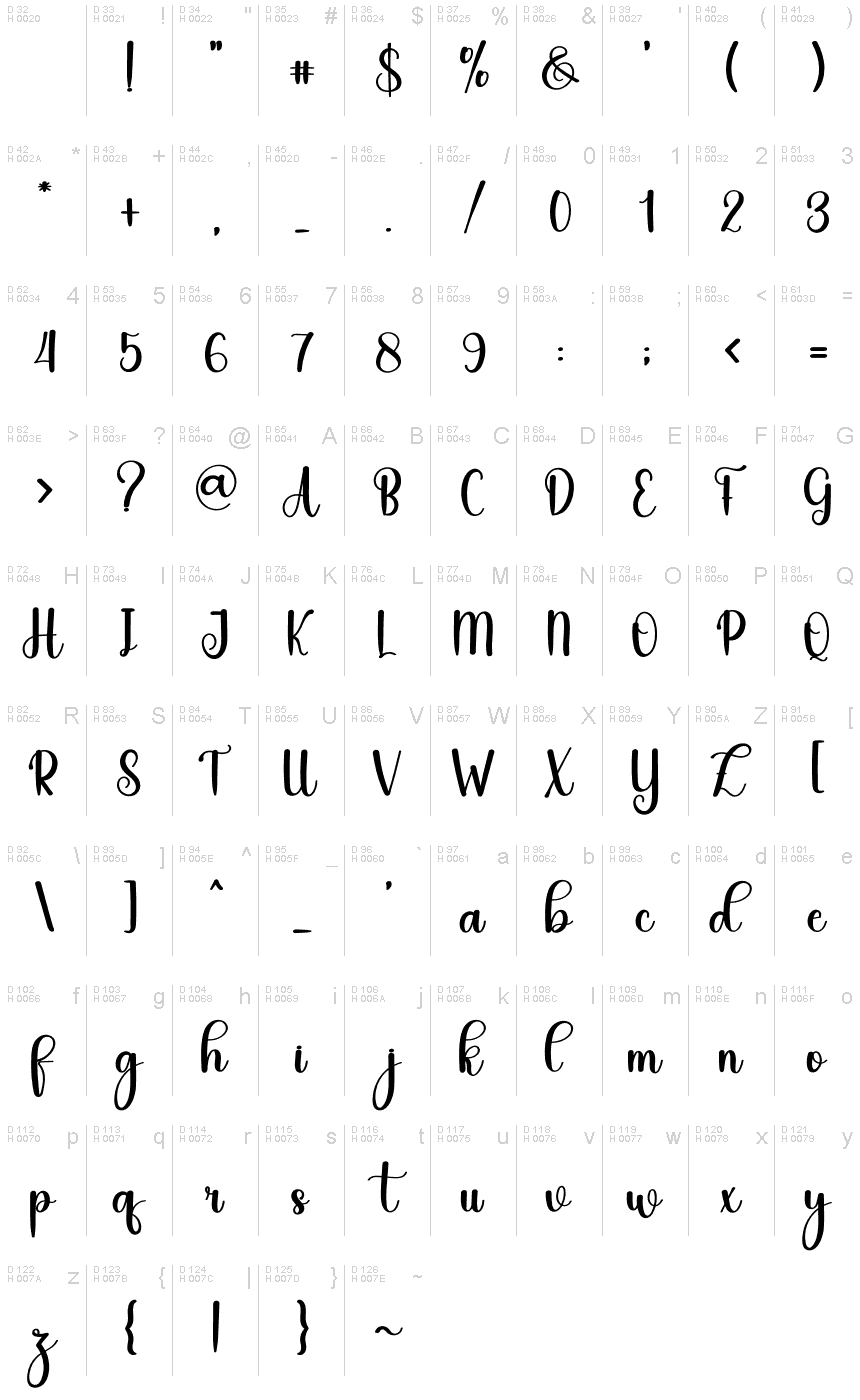
Always Happiness
Always Happiness, designed by FreshtypeINK, is a captivating handwritten font that exudes a delightful charm. With its semi-light weight, this font effortlessly combines elegance and playfulness. Its flowing strokes and whimsical curves make it perfect for projects that require a touch of warmth and friendliness. Imagine using Always Happiness for children's book covers or invitations to joyful events. This versatile font can also bring an air of creativity to art-related projects like greeting cards or posters. Let Always Happiness be the companion that adds a touch of cheerfulness to your design endeavors.